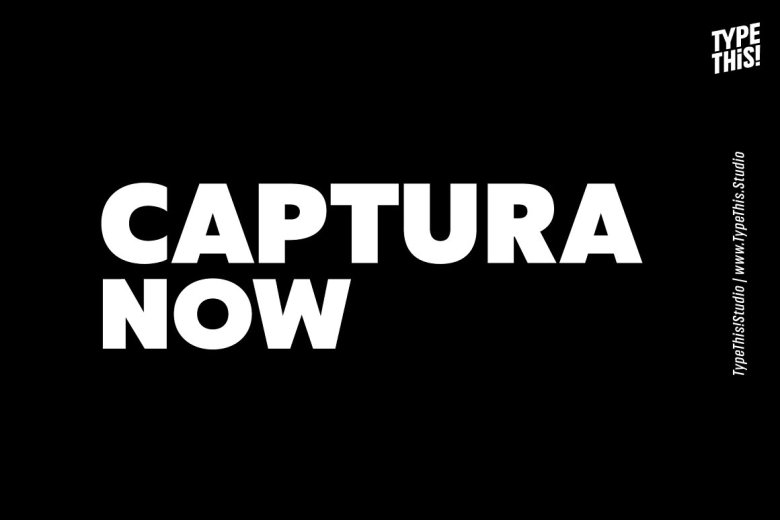
Captura Now Font
Captura Now Sans in use – Carefully refined shapes, and sensitively balanced spacing and kerning grant the gentle rythm that is necessary to style Captura Now in its warm-hearted face, perfect in form and shape. Extended with an impressive character set, captura now is ready to serve your design for converting into the cyrillic-language world, and into every other latin based language – including vietnamese. Several Opentype-Features such as stylistic alternates, small caps, circled arrows, slashed zero, and more have been implemented for a smooth workflow.
Captura Now Sans Serif Font Family